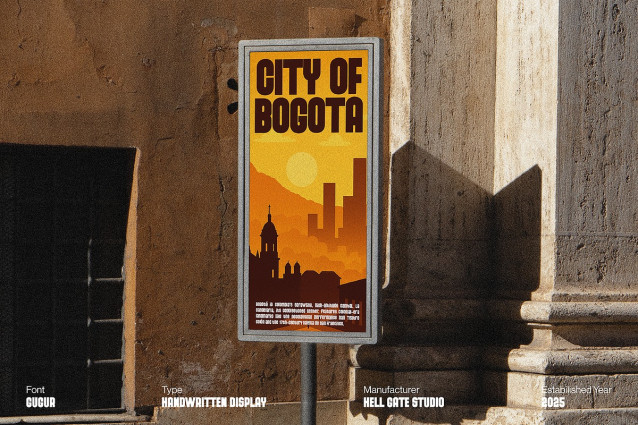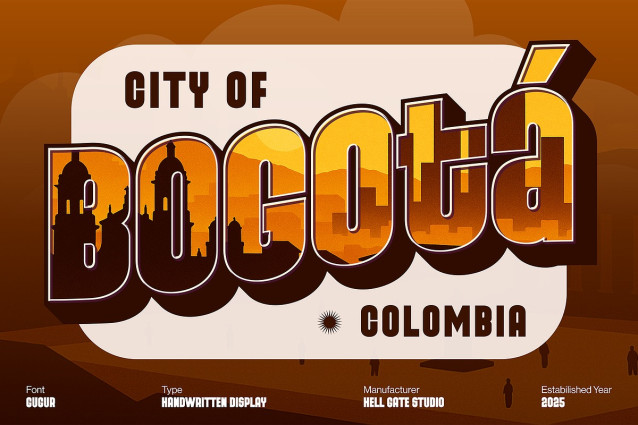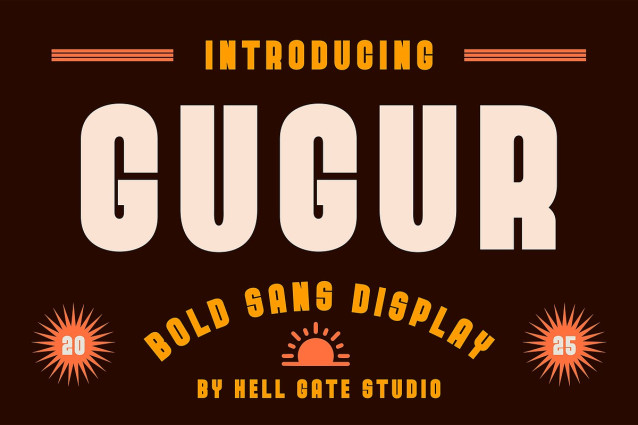
Gugur Font
Gugur Font is a captivating Autumn Display Font, ideal for adding a touch of the fall season to your designs. With its easy-to-edit text and color, Gugur display font offers an accessible and straightforward way to transform any project into an autumnal masterpiece.
Delivered in OTF format, this high-quality font encapsulates the essence of fall, ready to breathe a seasonal touch into your projects. Experience the elegance, quality, and subtle charm of Gugur, your perfect choice for autumn-inspired creations.